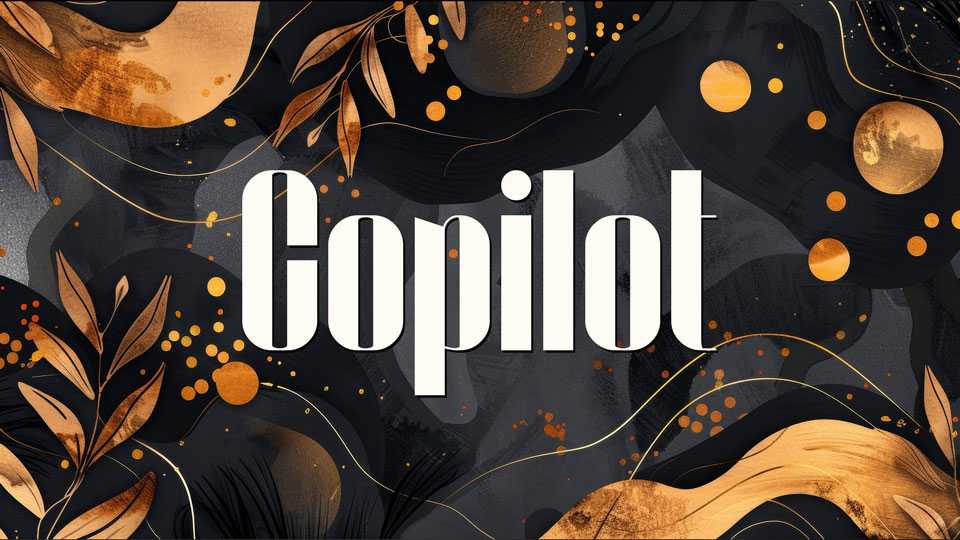
Download Copilot font, a modern, high contrast, condensed sans serif typeface that exudes sophistication and style. It features narrow letterforms with a striking balance of thick and thin strokes, creating a visually captivating and elegant appearance.